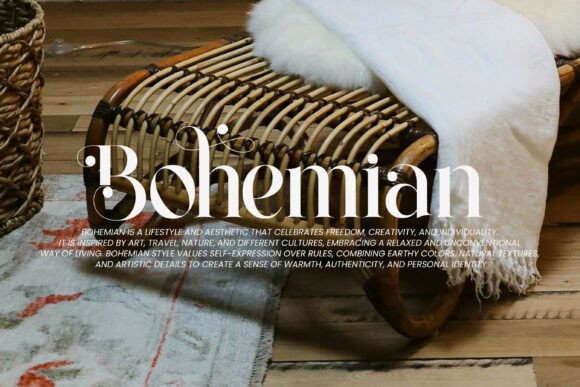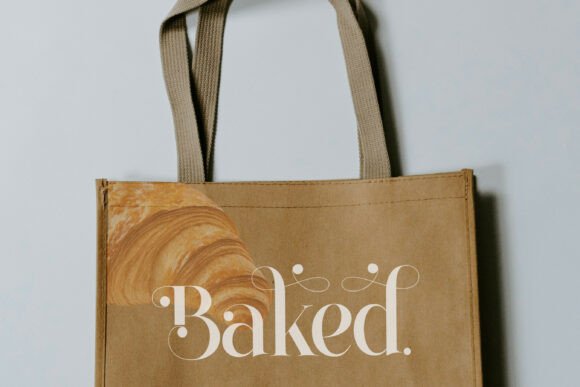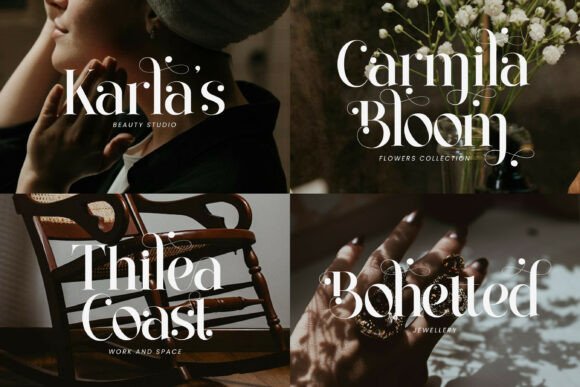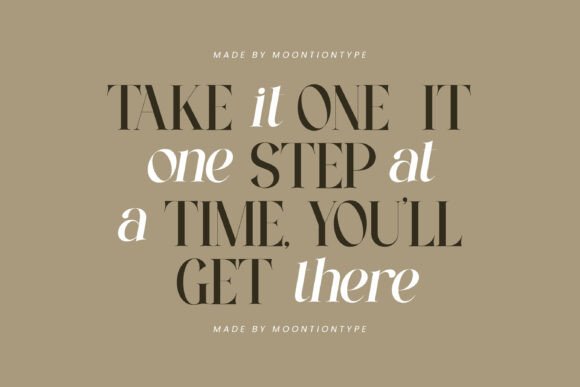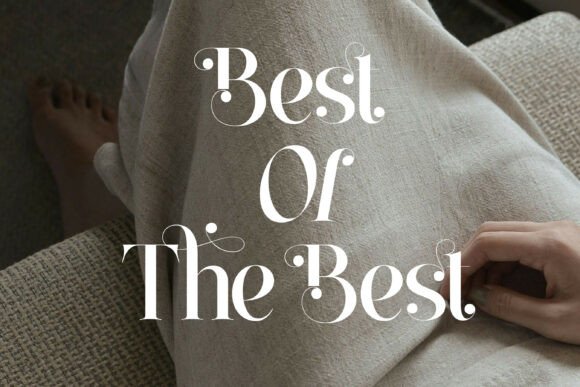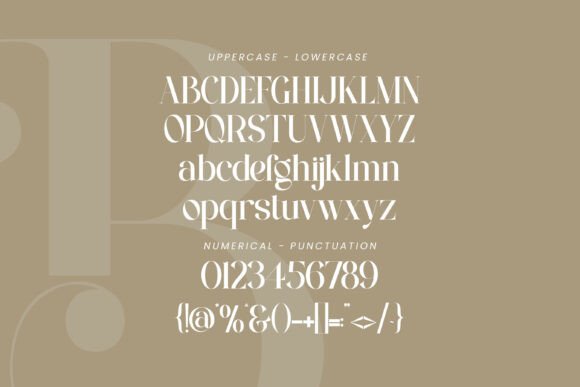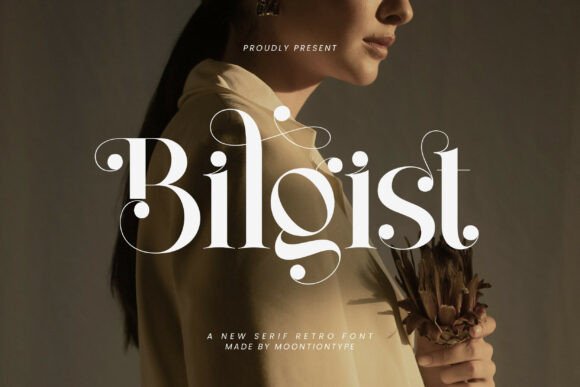
Bilgist Font: Elevate Your Design with Mid-Century Elegance
In the world of typography, few fonts manage to exude an air of high fashion and mid-century elegance quite like the Bilgist font. This stunning serif retro font is designed for sophisticated branding, making it an ideal choice for luxury packaging, editorial headlines, and upscale logo design. With its dramatic high-contrast strokes, elegant ball terminals, and artistic swashes, Bilgist is sure to elevate your design portfolio to new heights.
The Characteristics of Bilgist Font
The Bilgist typeface features a unique blend of classic and modern elements, making it a standout in the world of typography. Some of its key characteristics include:
- Dramatic high-contrast strokes: Bilgist’s bold strokes create a sense of drama and elegance, perfect for making a statement in luxury branding and editorial design.
- Elegant ball terminals: The font’s ball terminals add a touch of sophistication and refinement, giving Bilgist a distinctly high-end feel.
- Artistic swashes: The swashes that dance across the baseline of Bilgist add a playful, artistic touch, making it perfect for creative and fashion-forward designs.
Pairing Bilgist with Other Fonts
When working with the Bilgist font, it’s essential to pair it with a complementary font to maintain a balanced, modern look. Here are some suggestions:
- Light, airy monoline script: A light, airy monoline script can add a touch of whimsy and elegance to your design, creating a beautiful contrast with Bilgist’s bold strokes.
- Simple geometric sans-serif: A simple geometric sans-serif can provide a clean, modern contrast to Bilgist’s ornate details, creating a balanced and sophisticated look.
Best Uses for Bilgist Font
The Bilgist typeface is particularly effective in large sizes where its intricate details can be fully appreciated. Here are some of the best uses for Bilgist:
- Fashion magazine layouts: Bilgist’s elegant, high-fashion feel makes it perfect for fashion magazine layouts, where it can be used to create stunning headlines and titles.
- Cosmetic branding: The font’s sophisticated, luxurious feel makes it an ideal choice for cosmetic branding, where it can be used to create high-end packaging and advertising.
- Boutique hotel stationery: Bilgist’s elegant, refined feel makes it perfect for boutique hotel stationery, where it can be used to create a sense of luxury and sophistication.
Tips for Using Bilgist Font
Here are some tips for getting the most out of the Bilgist font:
- Use it in large sizes: Bilgist’s intricate details are best appreciated in large sizes, so don’t be afraid to use it in headlines and titles.
- Experiment with swashes: The swashes in Bilgist can add a playful, artistic touch to your design, so don’t be afraid to experiment with different swash styles.
- Pair it with contrasting fonts: Pairing Bilgist with contrasting fonts can help create a balanced, modern look, so don’t be afraid to try out different font combinations.
The Bilgist font is a stunning serif retro font that exudes an air of high fashion and mid-century elegance. With its dramatic high-contrast strokes, elegant ball terminals, and artistic swashes, it’s an ideal choice for luxury packaging, editorial headlines, and upscale logo design. By following the tips outlined above, you can use Bilgist to create a sense of timelessness and “quiet luxury” in your next professional project. Whether you’re a designer, crafter, or simply a typography enthusiast, Bilgist is sure to elevate your design portfolio to new heights.